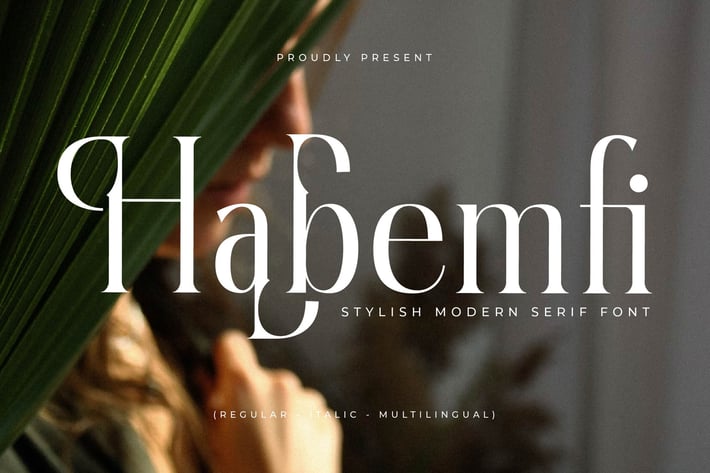
Habemfi Stulish Modern Serif Font
Habemfi Stylish Modern Serif Font delivers a luxurious and polished type look designed to elevate your digital and printed creative projects. With elegant curves, refined serif details, and a modern editorial feel, this font brings a premium aesthetic that fits beautifully into branding visuals, social media layouts, posters, and personal projects.
Modern serif style with stylish contrast
Smooth curves & elegant letter construction
Regular & Italic styles included
Branding & identity design
Editorial layout & magazine style
Social media content
Invitations & cards
Premium product packaging
Elegant promotional designs
A modern serif crafted to bring effortless elegance and premium vibes to every design you touch.